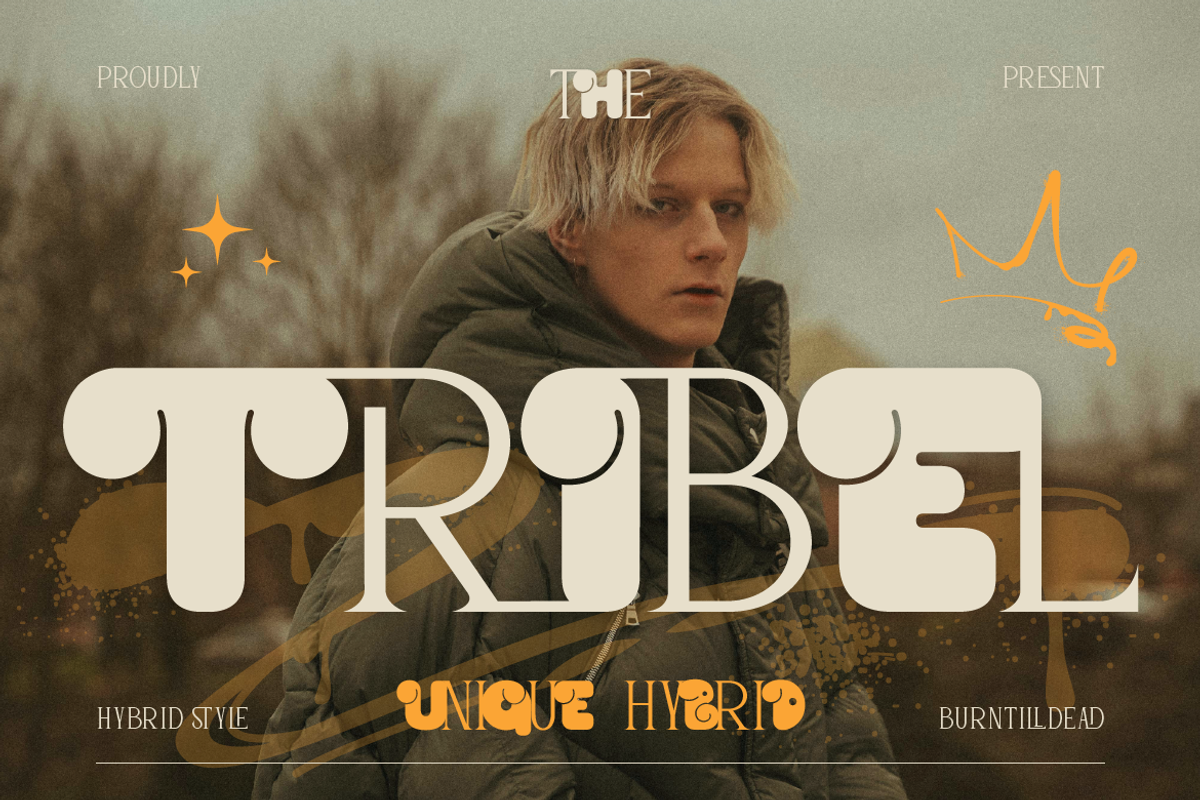
Tribel - Unique Hybrid Typeface Free Download
Tribel - Unique Hybrid Typeface Free Download is a bold and innovative typeface that blends geometric shapes with organic, hand-crafted details. Its modern, edgy design makes it perfect for logos, branding, posters, and creative projects that demand a strong, unique look. Whether you're working on a tech brand, artistic campaign, or a bold marketing strategy, Tribel - Unique Hybrid Typeface Free Download provides versatility and style with its distinct blend of contemporary and natural elements. Explore its dynamic design in personal projects before purchasing a commercial license and add a bold, artistic touch to your work with this one-of-a-kind hybrid typeface.